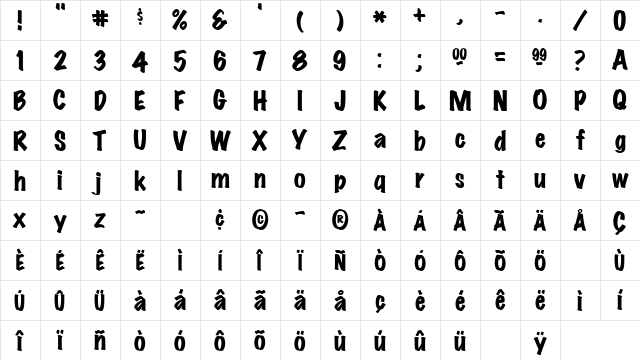
MarkerFeltWide-Plain Regular Free Font
MarkerFeltWide-Plain Regular
Design Context for MarkerFeltWide-Plain
MarkerFeltWide-Plain is a composed and adaptable typeface that performs quietly and consistently across a wide range of design contexts.
Pro Tip: Use MarkerFeltWide-Plain in both headline and body roles to test its range before committing to a single application.